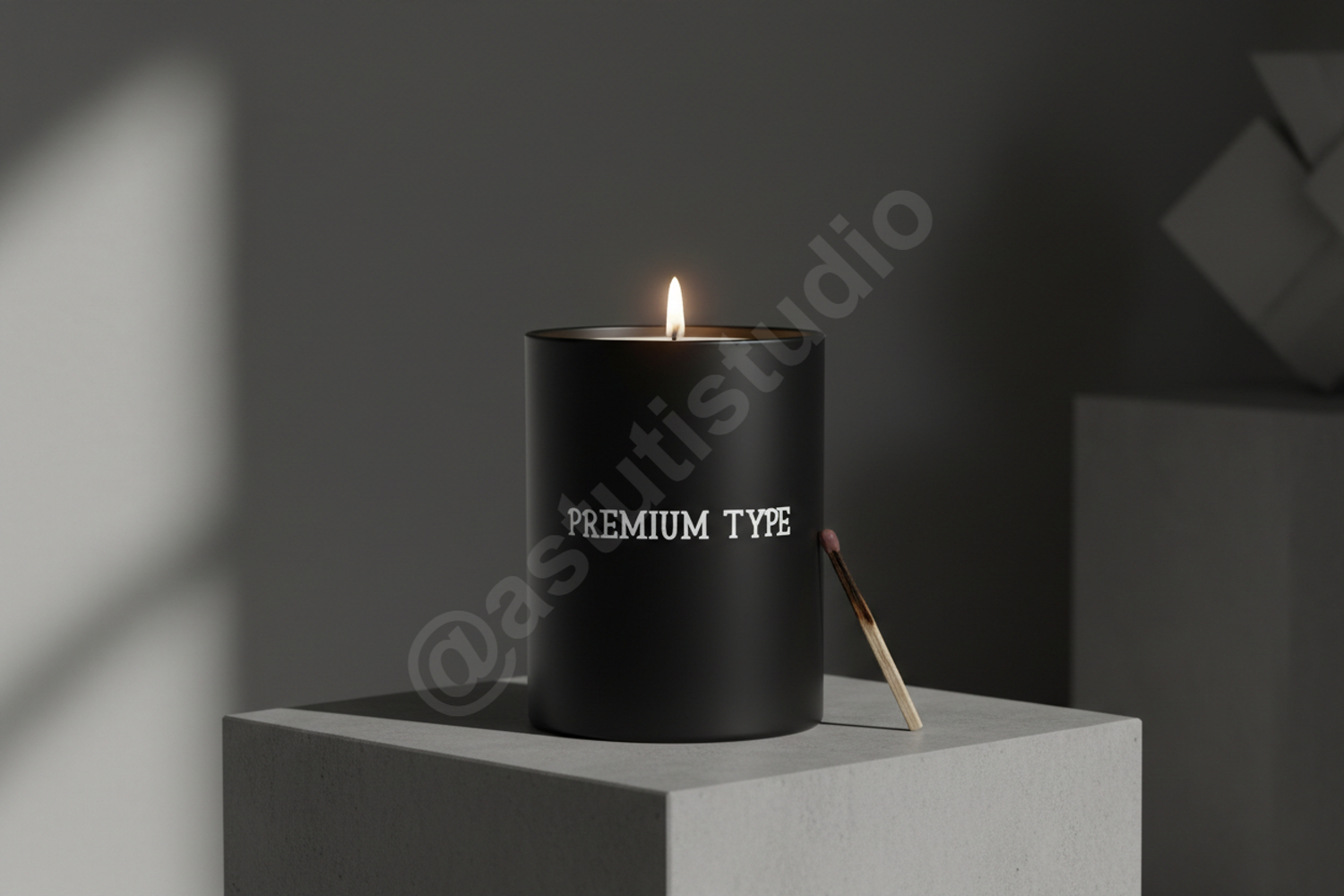
Kagixe - Elegant Modern Serif Display Font
Kagixe
Kagixe is a premium serif font that embodies sophistication and modern elegance. Designed with high-contrast strokes and refined curves, this typeface is crafted to bring a touch of luxury to any creative project. Whether you are building a brand from scratch or looking for the perfect headline font, Kagixe offers the versatility and professional quality required for high-end design.
Kagixe is a meticulously crafted serif typeface that balances classic proportions with contemporary aesthetics. Its sharp serifs and elegant letterforms make it an ideal choice for designers seeking a font that commands attention while maintaining a clean, professional appearance.
- Full uppercase and lowercase character set
- Comprehensive numbers and punctuation
- Multilingual support for global reach
- Luxury Branding and Identity: Create a memorable and upscale brand presence.
- Editorial Design: Perfect for magazine headers, titles, and sophisticated layouts.
- Wedding Stationery: Add a touch of class to invitations and event programs.
- Logo Design: Build strong, timeless logos for fashion and lifestyle brands.
- Premium Packaging: Elevate product presentation with high-end typography.
- Social Media Graphics: Craft eye-catching and professional visual content.